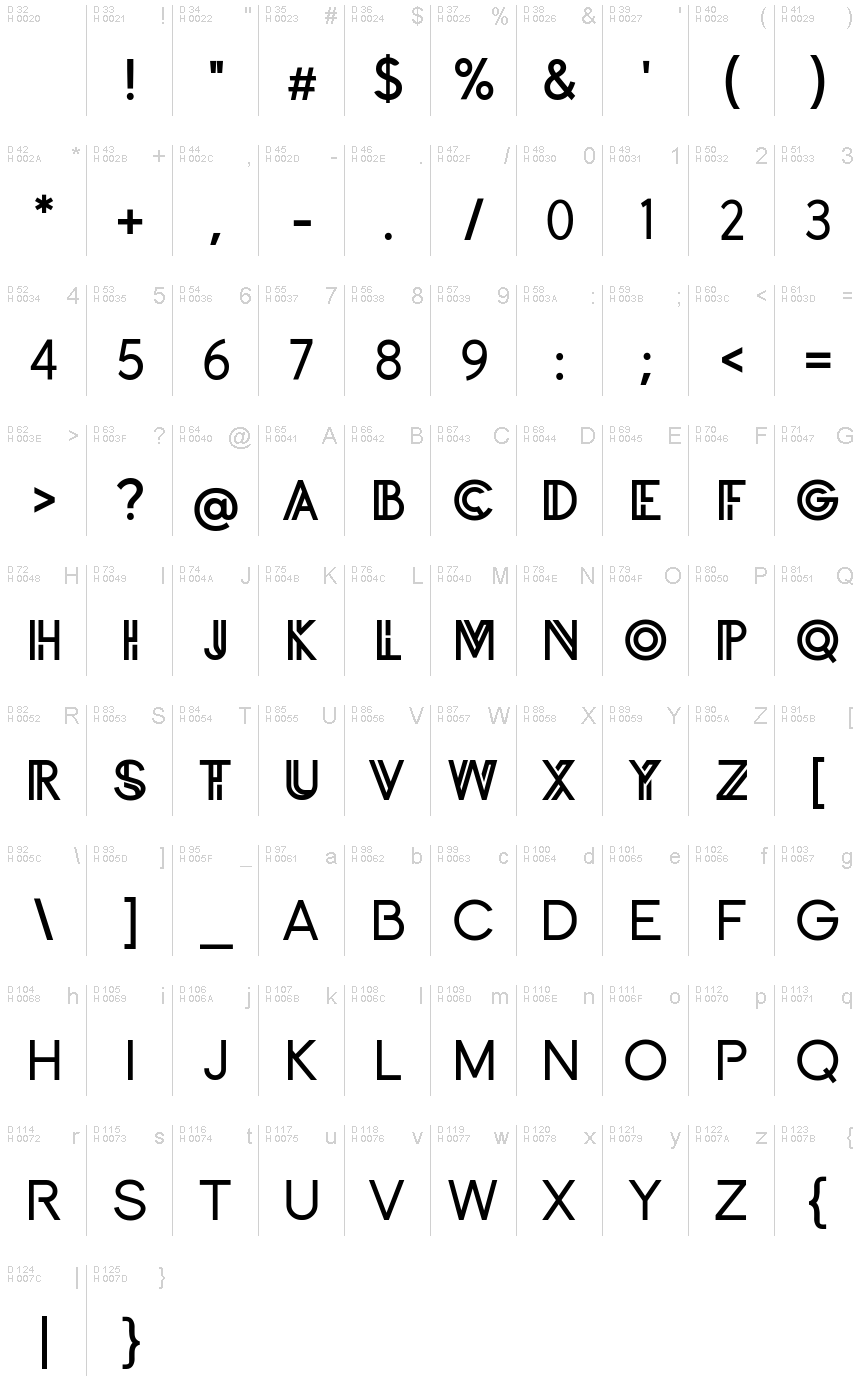
INZYDECO
Inzydeco, a bold display font crafted by UI Creative, exudes a captivating blend of modern sophistication and striking visual impact. Its clean, geometric forms and angular, geometric strokes create a sense of dynamism and energy, making it a compelling choice for attention-grabbing designs. The font's strong, confident presence lends itself well to various applications, from eye-catching headers and impactful branding to powerful typographic statements.
Inzydeco's versatility extends across a range of design contexts, from sleek and sophisticated campaigns to edgy, contemporary projects. Its bold, unapologetic personality makes it an excellent choice for bold, attention-grabbing designs, such as in the realms of fashion, entertainment, or technology. The font's striking visual presence can elevate the impact of logos, posters, packaging, and other design elements, ensuring a memorable and impactful impression.